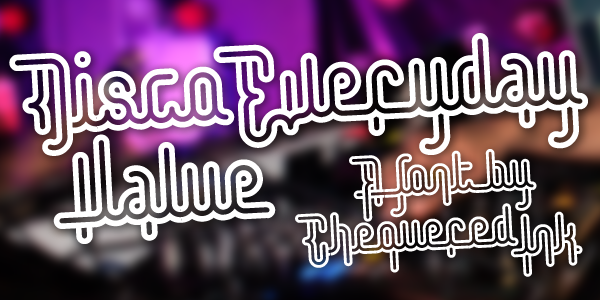
Damn these new bricks are tasty.
Love your arrangement of the new curved bricks! Great script!
Congratulations! FontStruct Staff have deemed your FontStruction worthy of special mention. “Disco Everyday Value” is now a Top Pick.
I can see that the new bricks when used with patience and artistic thought make stunning script fonts. Congratulations on the TP :)
This is so cute!